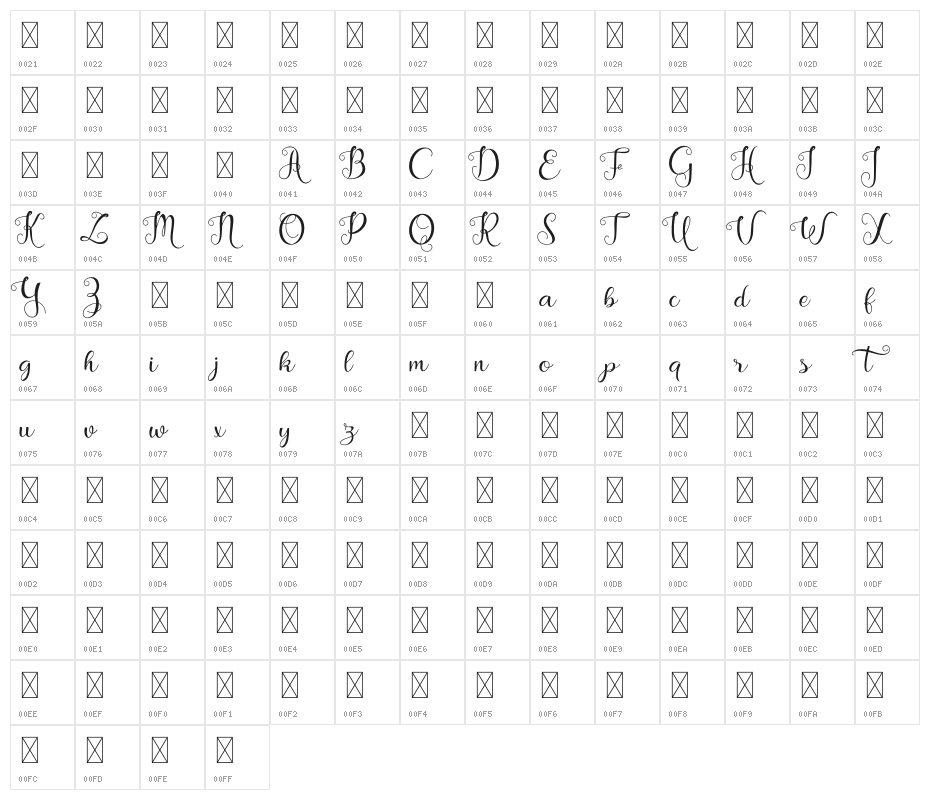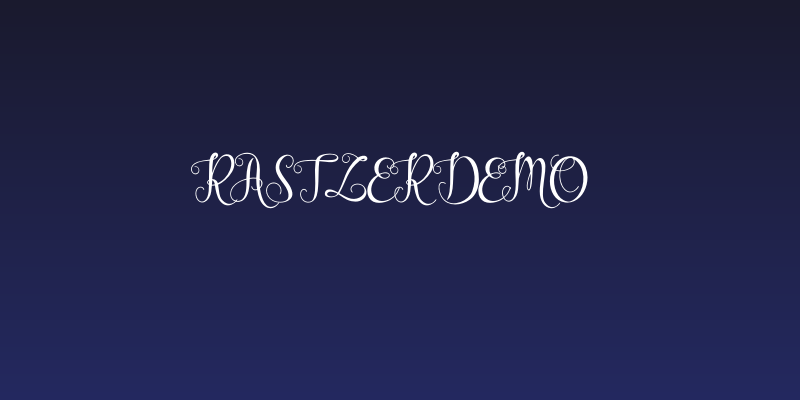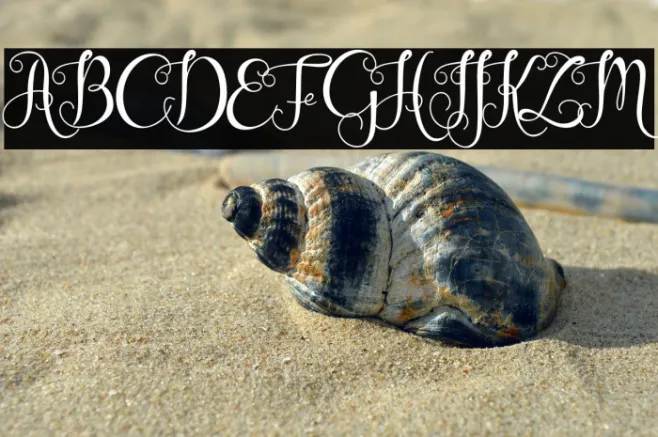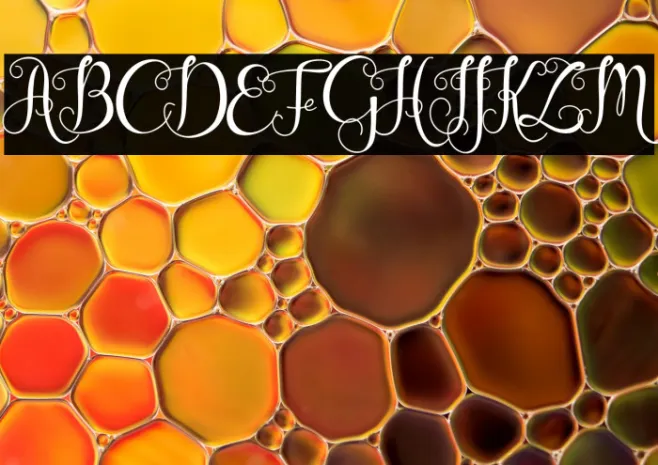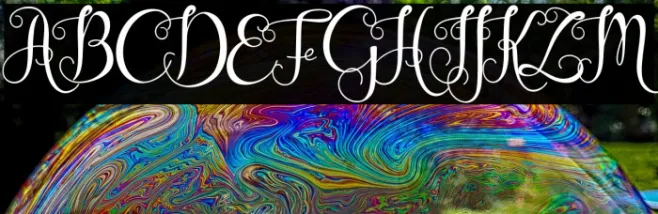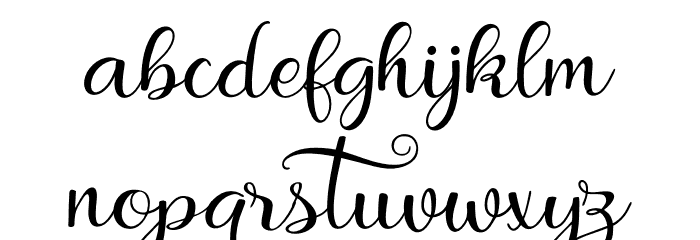
Rastler Demo Font
Rastler Demo Description
This elegant script font features intricate swirls and flourishes, giving it a sophisticated and decorative appearance. The uppercase letters are particularly ornate, with each character adorned with unique loops and curves that add a touch of whimsy and elegance. The lowercase letters maintain a more subtle flair, ensuring readability while still offering a stylish and artistic look. The font's overall design is reminiscent of classic calligraphy, making it ideal for formal invitations, branding, and decorative purposes. The absence of numbers and special characters suggests a focus on aesthetic appeal over functionality.
| Proposed Projects | Ideal for wedding invitations, branding, logos, and decorative headings. |